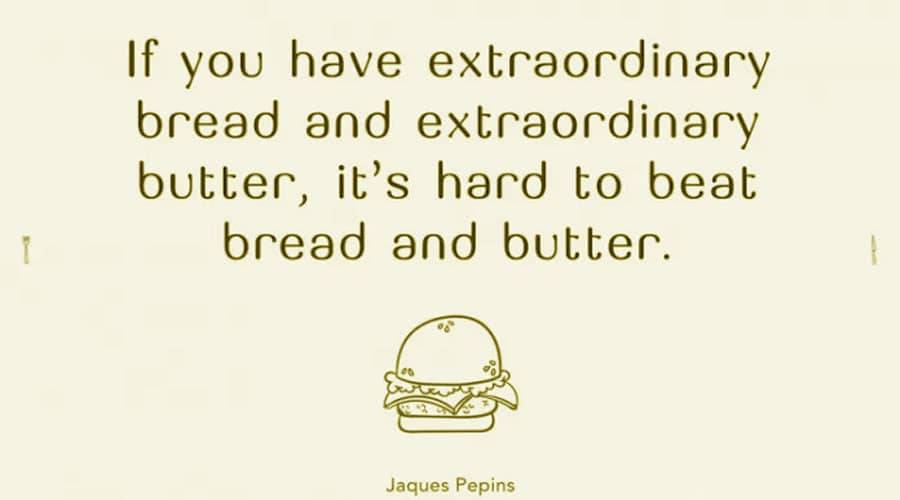
Massa Font
Massa Font is a one-of-a-kind Sans Serif Font. Tino Mendes created and released the Font on January 20, 2020.
Massa Font supports international languages and includes upper and lowercase alternate characters. This lovely Font is only available as a ZIP file. It’s a very functional typeface that looks good for both large and small sizes. This typeface is categorized under sans serif. There are many similar fonts as Massa Font. Those identical fonts are Jocker Vintage Font Family, The Old Forest Handdrawn Serif Font, Made Coachella Font Family, MADE Outer Sans Font Family and many more.
Massa is an iconic sans serif typeface suitable for news stories, large text, brand identity, logotypes, and display use. This typeface is also perfect for building fantastic logos, advertising products, and marketing graphics that highlight the design’s technical potential. The Font primarily get used in the book covers.